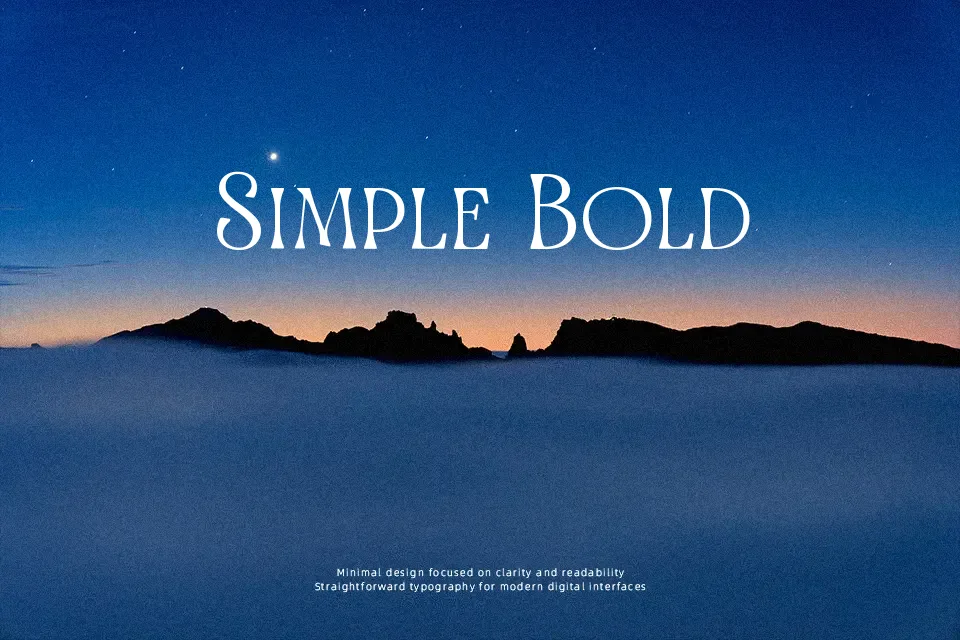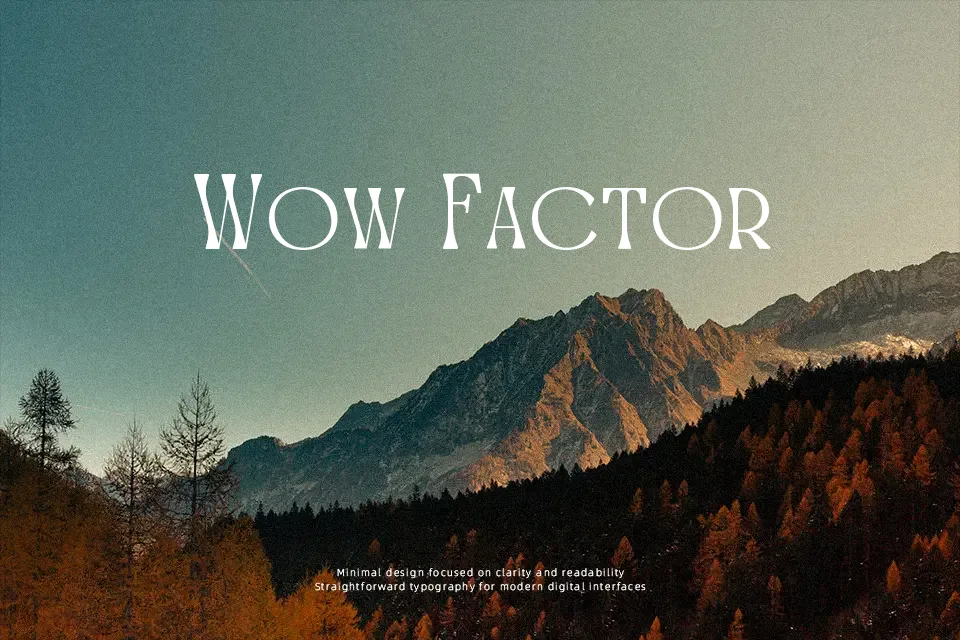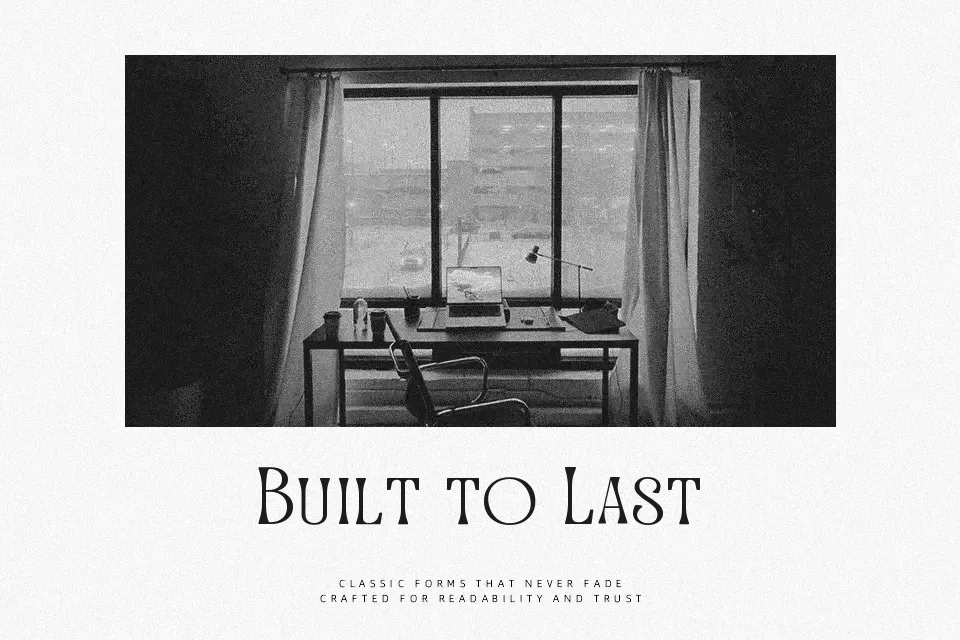
Awesome Lathusca Font
This font leans into a serif display look, with slim verticals, confident contrast, and distinctive curves that give letters a slightly retro, art-deco flavor. Spacing is fairly tight, so words feel compact and punchy, which works nicely in logos, product names, and large advertising headlines. Awesome Lathusca feels decorative and stylish rather than formal, making it suitable for fashion branding, packaging for boutique goods, or magazine-style cover lines that need personality. It struggles in long paragraphs or small UI text where its decorative shapes can tire the eye, and it works best when you keep copy short and focused. Compared with more neutral modern serifs, it trades a bit of readability for a stronger visual voice.
branding-focused headlines and logotypes
packaging titles for cosmetics, candles, or lifestyle products
editorial covers and feature headings with a vintage accent
dense body copy or long-form reading
very small captions or interface labels
corporate reports needing a neutral, highly legible tone
technical documents or data-heavy presentations
Perfect for branding, editorial, and headline, with a artistic and display style.